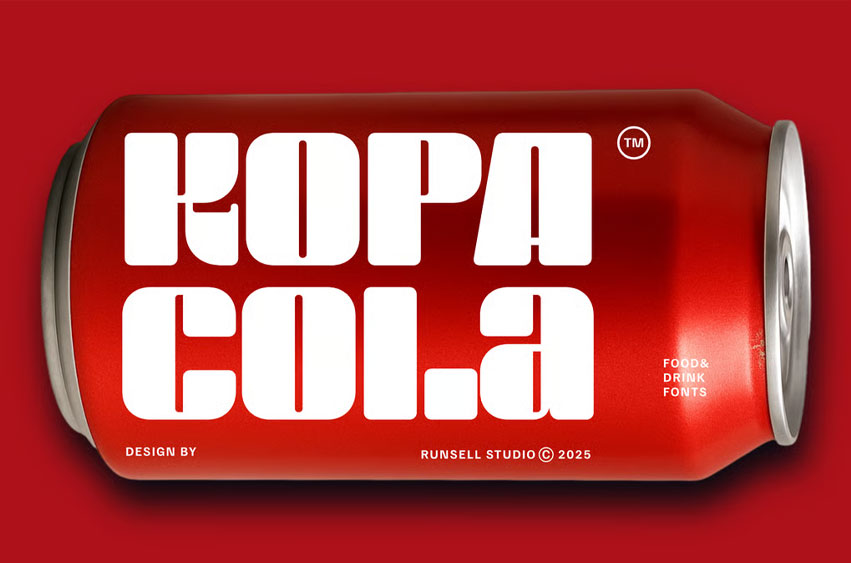
Kopa Cola Font
Kopa Cola Font is a bold and stylish display font that bursts with attitude and energy. Its geometric curves and playful proportions make it ideal for logo designs, restaurant branding, café menus, and food & beverage packaging. Whether you’re creating visuals for a refreshing drink, coffee, burger, or pizza brand, this font delivers a strong, modern statement with a delicious twist.
Perfect for bakery signage, chocolate labels, or creative kitchen identities, Kopa Cola blends contemporary style with a nostalgic punch. Its unique letter rhythm and sleek forms bring flavor and character to any brand identity. From playful candy ads to cool menu designs, Kopa Cola gives your typography a tangy, memorable taste that stands out in every design.
Cooked with Creativity, Served with Style.